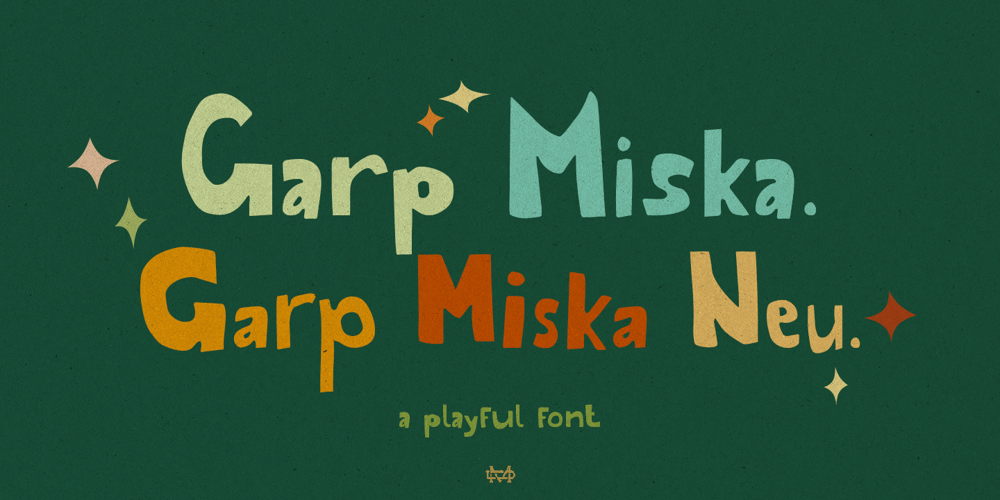
Garp Miska Font Family was designed by madededuk and published by madeDeduk. Garp Miska contains 2 styles and family package options. Gary Miska is a cute font with two style neu and regular fun happiness look and will makes this font suitable for your any project design.Feature Uppercase & Lowercase Number & Symbol International Glyphs Multilingual support ligature Feel free to drop us a message any time and follow my shop for upcoming updatesShoot me on email at: dedukvic@gmail.com Hope you enjoy it.